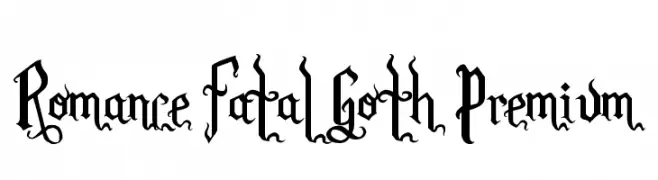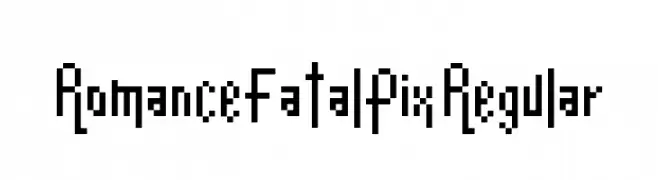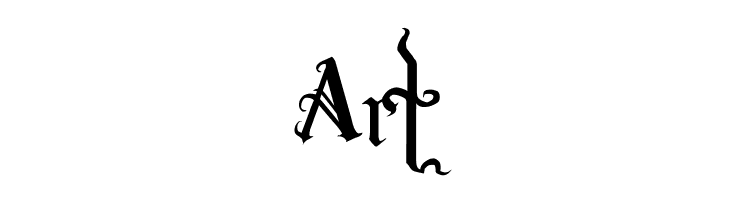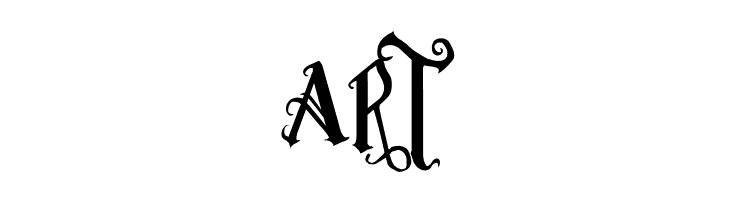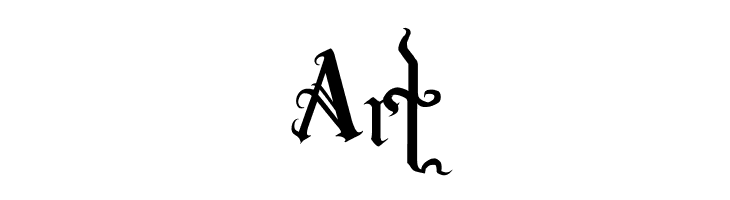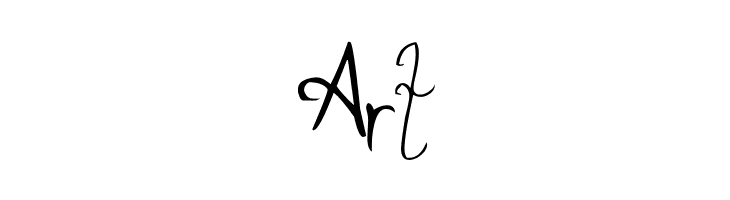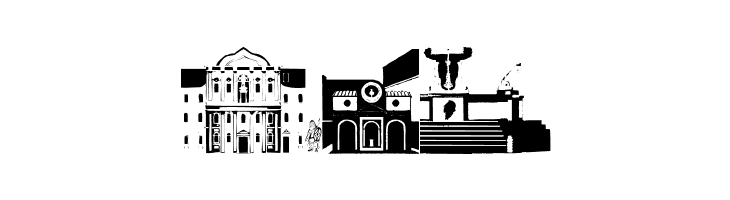
• RomanaCapsClassicSquares
A decorative font with classic charm, featuring characters enclosed in squares with elegant embellishments.
• RomanArchitectura
A display font composed of Roman architectural and historical silhouettes.
• romance
An elegant, flowing script font with a romantic and sophisticated style.
• Romance Fatal 2.00
An artistic script font with flowing, interconnected letters and whimsical flourishes.
• Romance Fatal Goth Premium
An ornate Gothic-inspired font with bold, angular lines and intricate flourishes.
• Romance Fatal Goth Premium
A dramatic Gothic font with intricate detailing and high contrast.
• Romance Fatal Goth Versal
A dramatic, ornate Gothic-style font with intricate flourishes and sharp angles.
• Romance fatal LCD Regular
A pixelated, retro-style font with a digital display aesthetic.
• Romance fatal LCD Regular
A pixelated, LCD-inspired font with a retro digital aesthetic.
• Romance Fatal Pix Regular
A pixelated, retro-style font with a digital, 8-bit aesthetic.